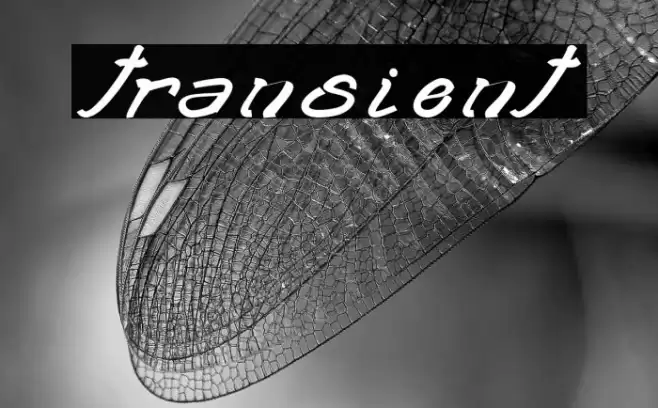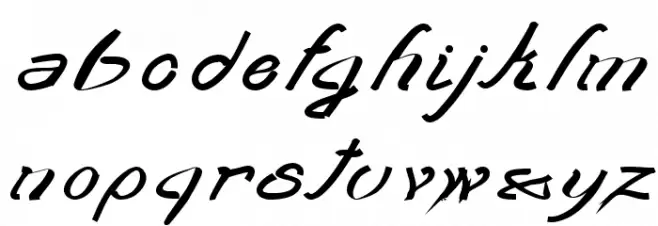
transient2 Font
transient2 Description
This font features a dynamic and flowing script style, characterized by its elegant and slightly italicized letterforms. The strokes are smooth and fluid, with a moderate contrast between thick and thin lines, giving it a sophisticated and artistic appearance. The characters are slightly slanted, enhancing the sense of movement and grace. The font maintains a consistent rhythm and spacing, making it suitable for decorative purposes. Its unique style is reminiscent of calligraphy, with a modern twist that adds a touch of flair to any design.
A dynamic and flowing script font with elegant, italicized letterforms from Uncategorized fonts.
- Proposed Projects: Ideal for wedding invitations, greeting cards, branding, and logo design.
- Use Case: Logos, Invitations, Decorative text